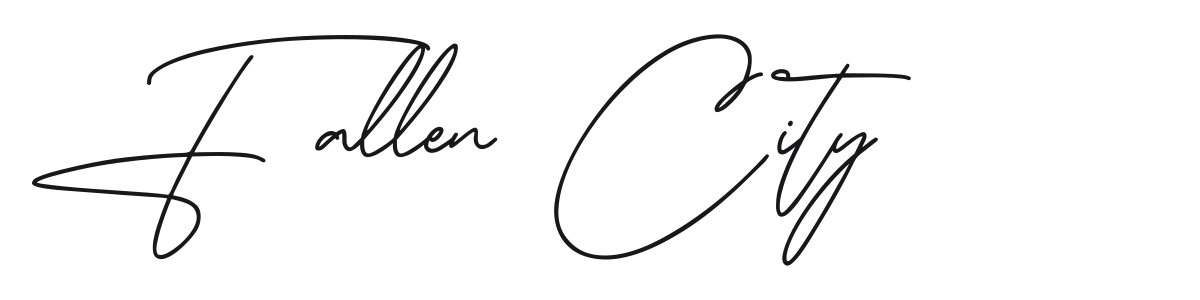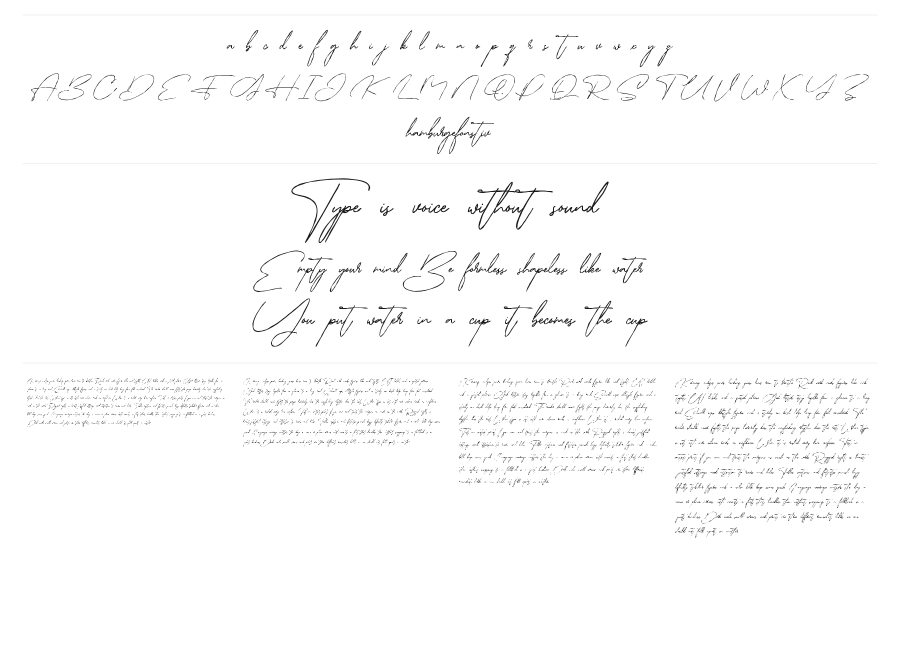
Fallen City
Fallen City is a flowing signature-style casual script with thin, looping strokes and sweeping connections between letters. The long horizontal swashes and generous ascenders give it an effortlessly confident, personal quality. It suits branding, editorial headers, and invitations where a handwritten authenticity is the point.